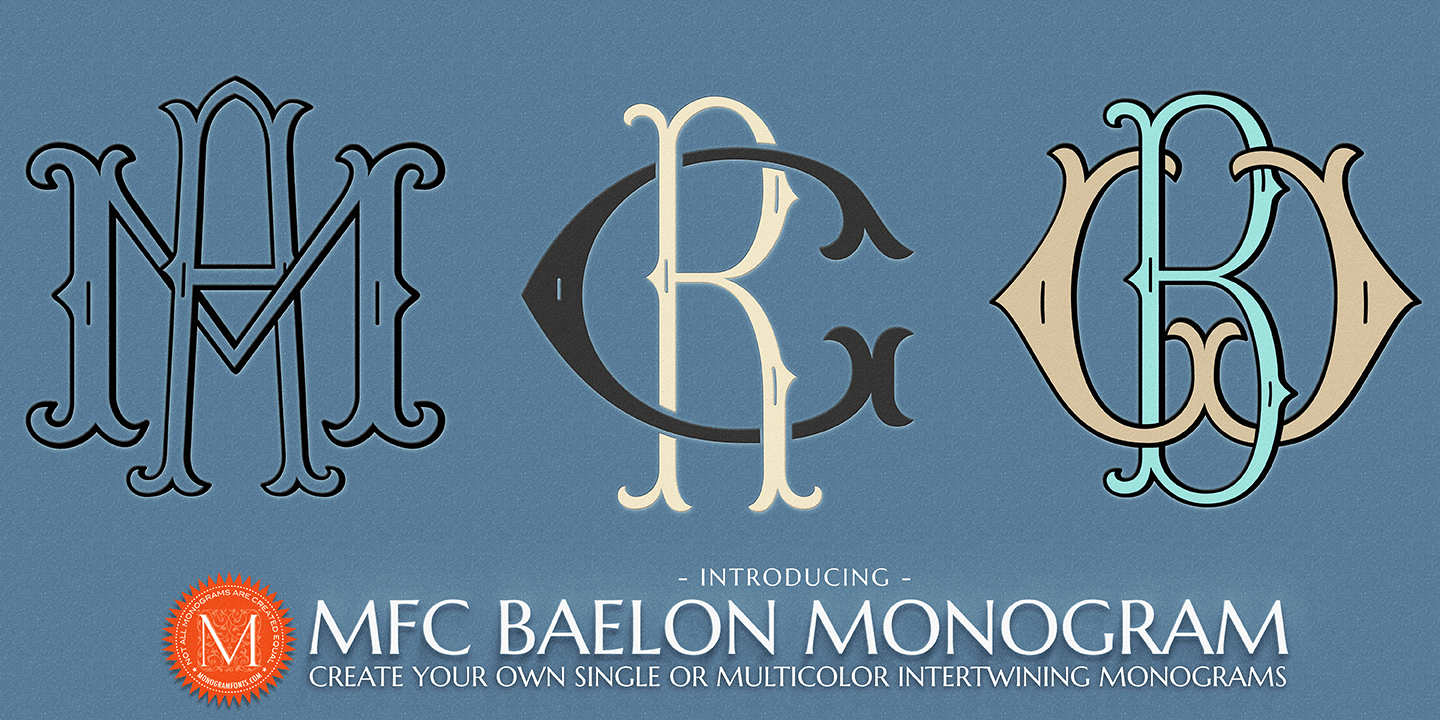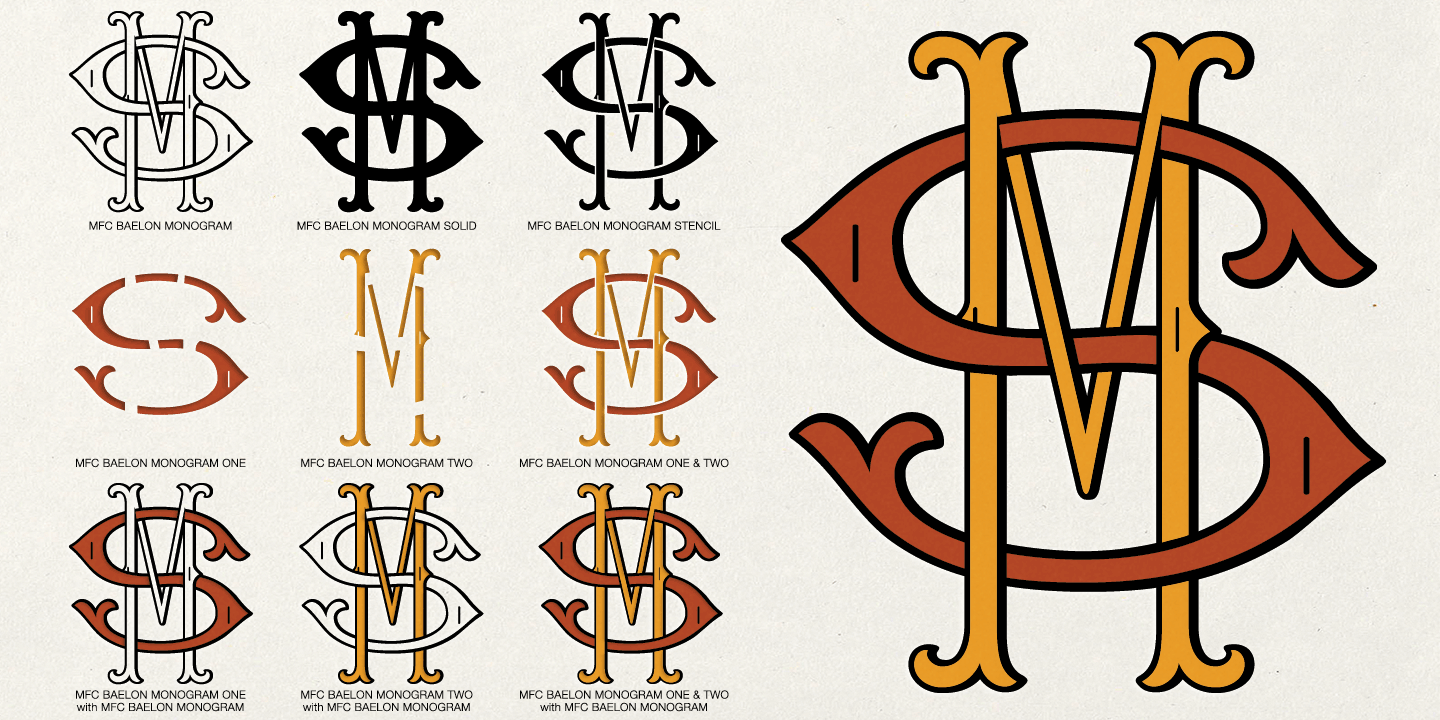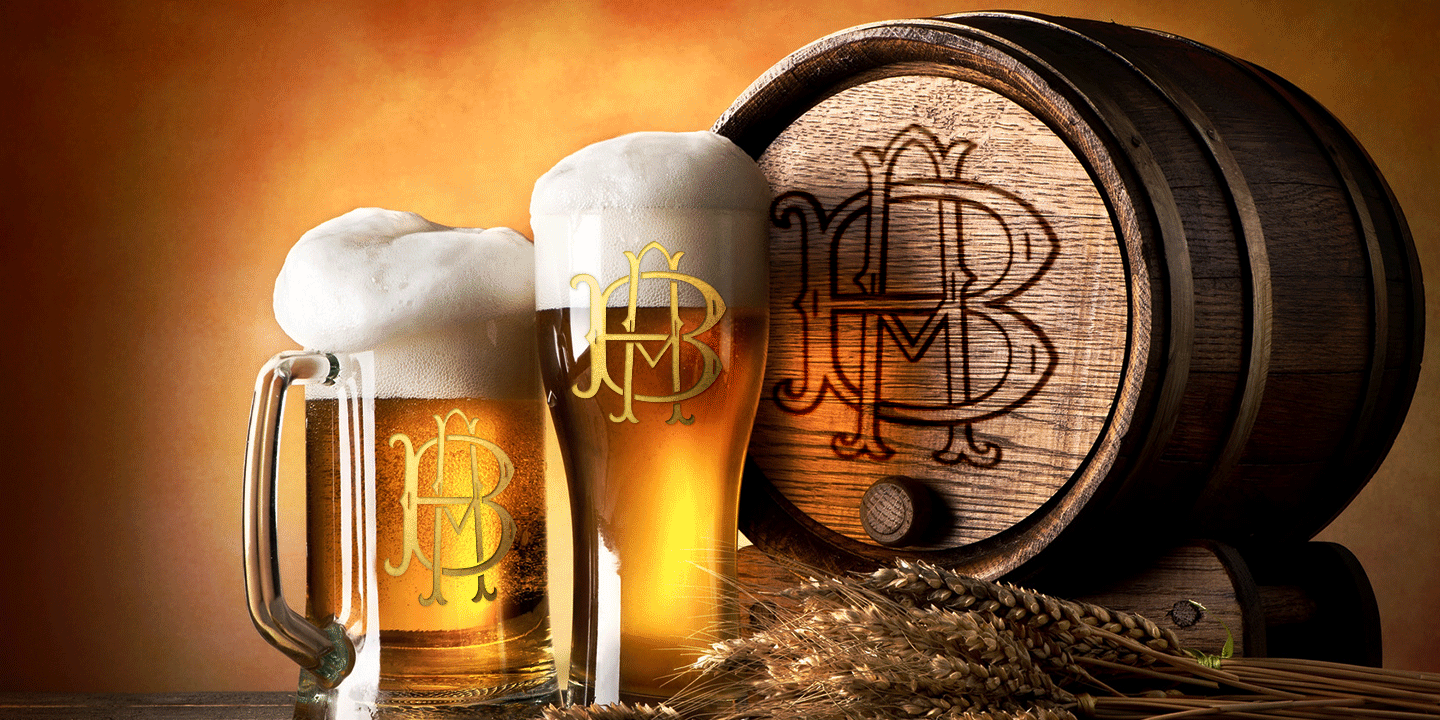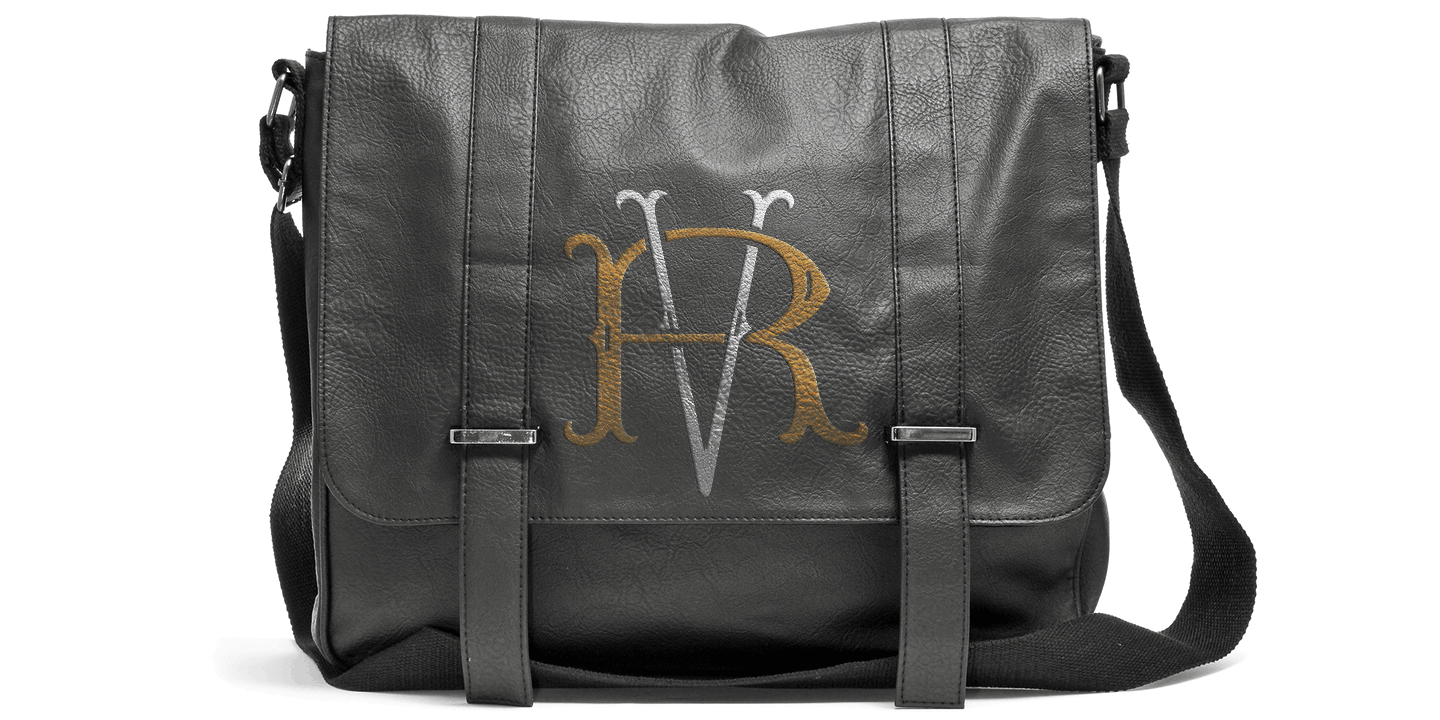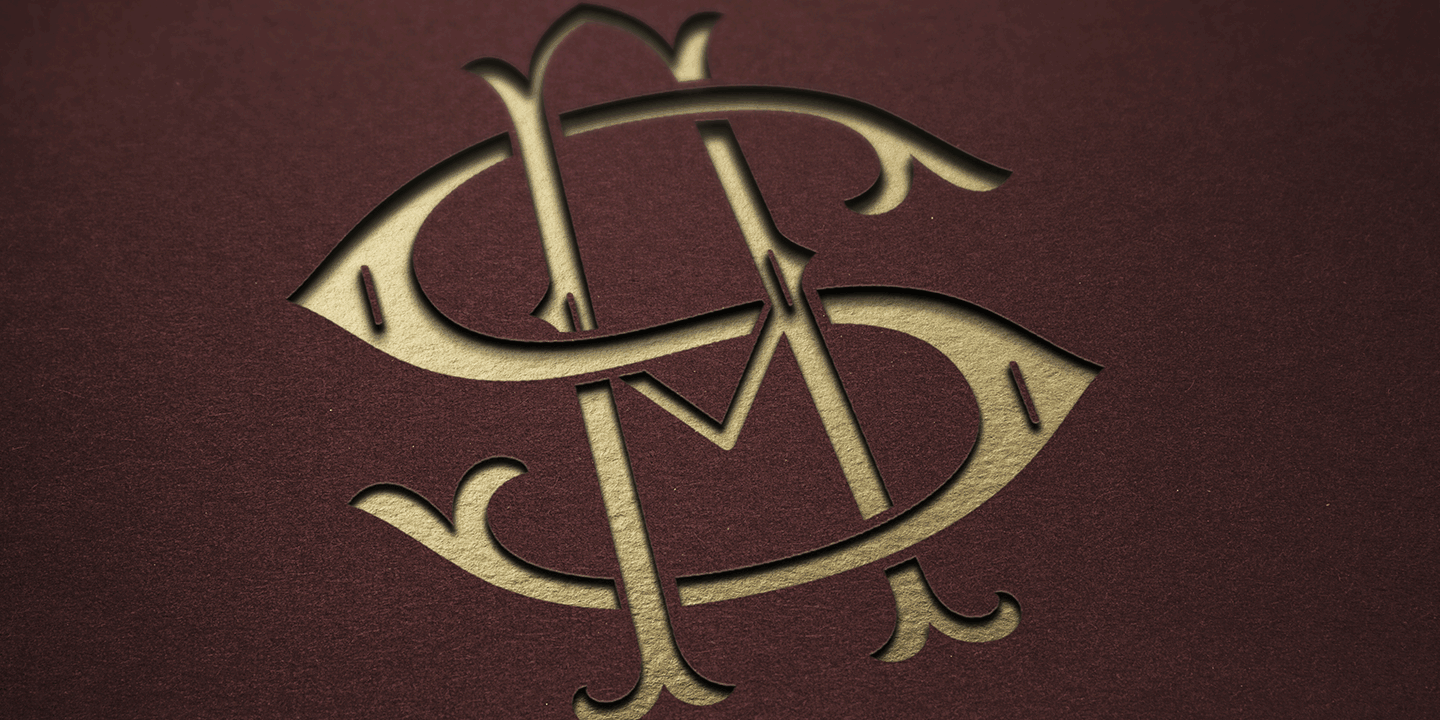
Baelon Monogram
Font Family by Monogram Fonts Co
The inspiration source for Baelon Monogram is an alphabet set from the book, Monograms and Alphabets for Combination by Dollfus Mieg & Cie, first published in the 1890s. What began as 26 referenced outline/shadowed letters became an over 800 character font in order to create its unique interwoven monogram effect!
Baelon Monogram can create one, two, or three letter monograms as well as a unique two letter intertwined monogram style - made by simply typing a lowercase immediately followed by a Capital (using OpenType Ligatures). Classic roman forms combine to make elegant monograms like designer branding, and you can also choose to type in all capitals or all lowercase for simple title and headlines as well. (Note that due to the manner in which combination monograms are formed, some letters like the I will change to script-like forms to avoid being hidden in overlaps).